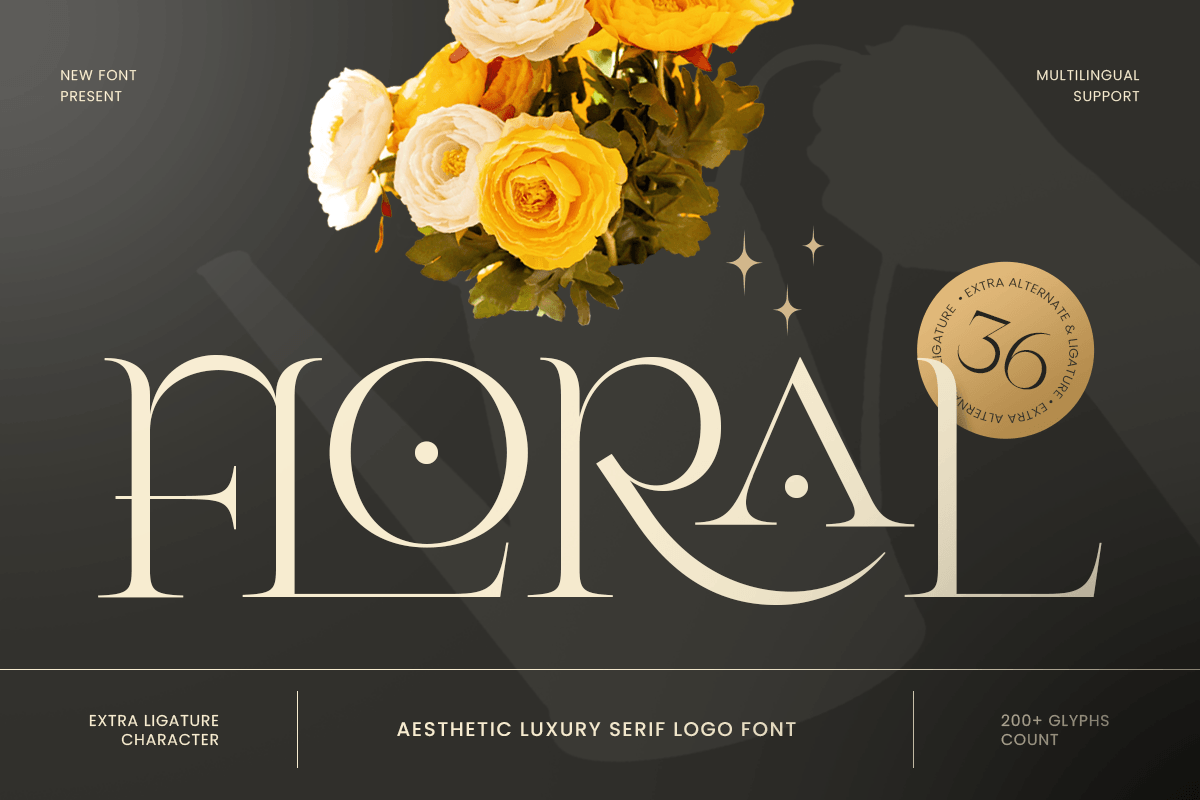
Floral
-Aesthetic Luxury Serif Logo FontFloral - Aesthetic Luxury Serif Logo Font
FLORAL is an aesthetic luxury serif logo font crafted to deliver a refined, premium impression with timeless elegance. With graceful serif details and a polished high-end feel, this typeface brings a sophisticated tone that feels modern, romantic, and beautifully elevated.
Perfect for luxury branding, boutique logos, beauty packaging, fashion editorials, wedding identities, and premium product labels, FLORAL enhances logos, headlines, invitations, signage, and social media visuals with a classy, aesthetic touch. Its elegant structure helps your typography look expensive and intentional across both minimal and statement layouts.
Whether you’re building a boutique identity, launching a luxury product line, or designing an editorial concept with modern romance, FLORAL provides the premium serif character needed to make every word feel exclusive and unforgettable.
FLORAL – Aesthetic Luxury Serif Features
Aesthetic luxury serif letterforms with refined elegance
Ideal for premium logos, boutique branding, and classy identity design
Perfect for fashion, beauty, wedding, and editorial applications
Strong presence for headlines, packaging, invitations, and signage
Clean readability for both print production and digital use
OpenType features for polished, flexible typography
Make your identity feel elegant and luxurious with FLORAL—crafted for aesthetic serif logos with premium charm. 🌸✨